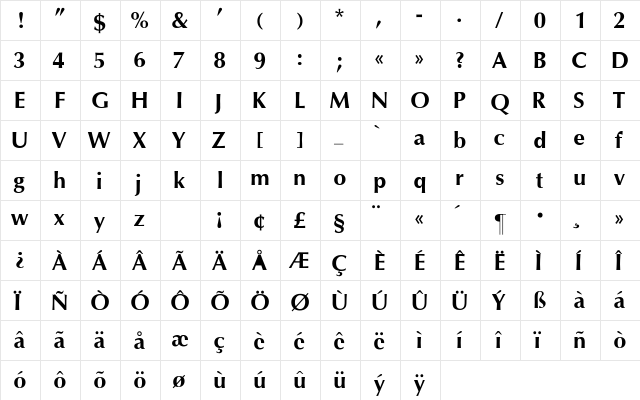
Opart-Medium Regular
Design Context for Opart-Medium Typeface
Opart-Medium offers clean, dependable letterforms without strong stylistic allegiance, making it a practical choice for designers who need flexibility.